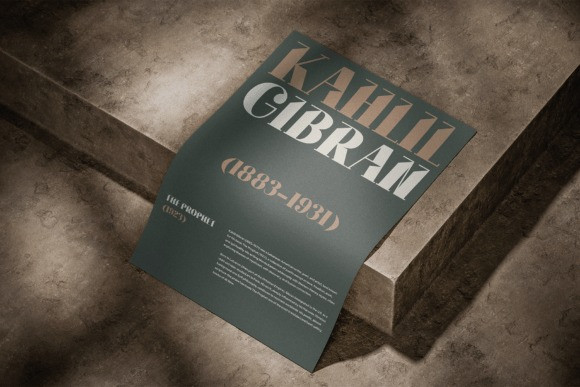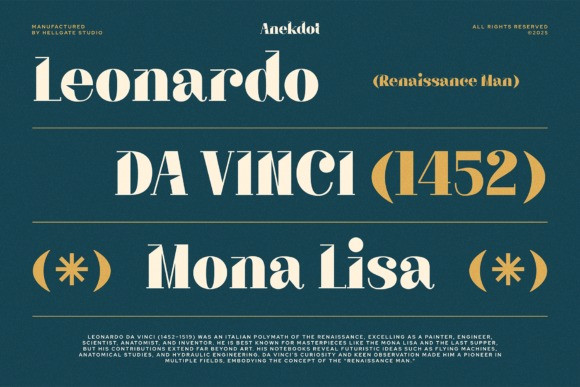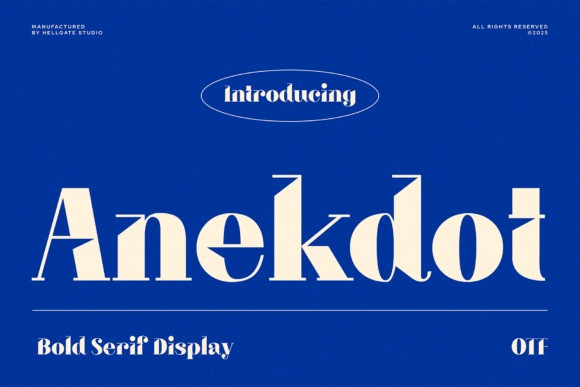
Anekdot Font
Anekdot Font – This powerful display serif font, tailored specifically for retro themes, exudes a bold and assertive persona that commands attention with ease. The Anekdot Bold Serif Typeface has been designed to offer seamless editing of text and color, providing effortless customization to suit your aesthetic needs. Plus, the high-quality rendering ensures the best outcomes.